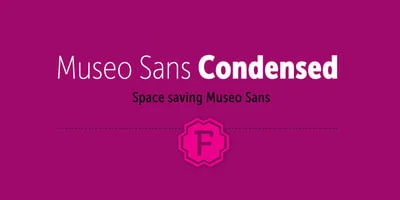
Museo Sans Condensed Font
Museo Sans Condensed Font is perfect for museum exhibition layouts, cultural institution signage, art gallery displays, educational publication designs, space-efficient editorial content, modern museum branding, contemporary art catalogs, cultural heritage materials, institutional communications, and sophisticated educational presentations that require scholarly authority with space-conscious design.
This font is exciting because it masterfully combines the scholarly gravitas and cultural sophistication of museum typography with space-saving efficiency, featuring condensed letterforms that maintain exceptional readability while maximizing content density in constrained layouts. Museo Sans Condensed Font offers the perfect balance of institutional authority and modern practicality for contemporary cultural and educational applications.
Museo Sans Condensed Font family includes Regular, Bold, Light, Medium, Thin, Black, Italic, and Extra Condensed versions, plus cultural symbols, educational ornaments, institutional marks, and scholarly design elements that enhance the museum aesthetic and provide comprehensive solutions for cultural and educational applications.
For cultural institution and educational design projects, Museo Sans Condensed Font delivers unmatched scholarly sophistication and space efficiency. The font's condensed letterforms and institutional character make it perfect for museums, galleries, and educational organizations seeking to communicate cultural authority while maximizing information presentation in limited space. Its refined design appeals to scholars and cultural enthusiasts who expect both intellectual rigor and modern accessibility. The character set includes cultural symbols and educational notation that reflect institutional standards. Professional designers appreciate its exceptional legibility in narrow applications and its ability to convey both scholarly authority and contemporary relevance across museum displays, educational materials, and cultural communications, making it essential for institutions that want to project the intellectual excellence and cultural sophistication that defines world-class museums and educational organizations in today's information-rich cultural landscape.